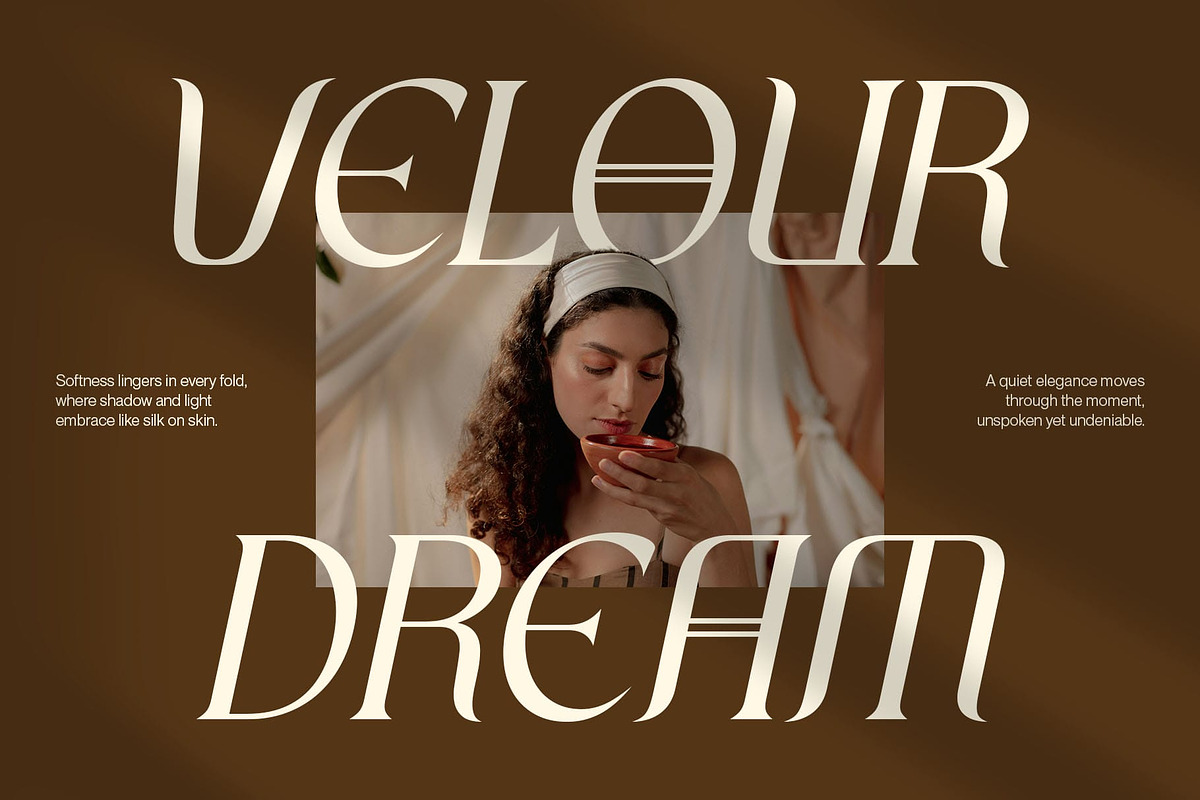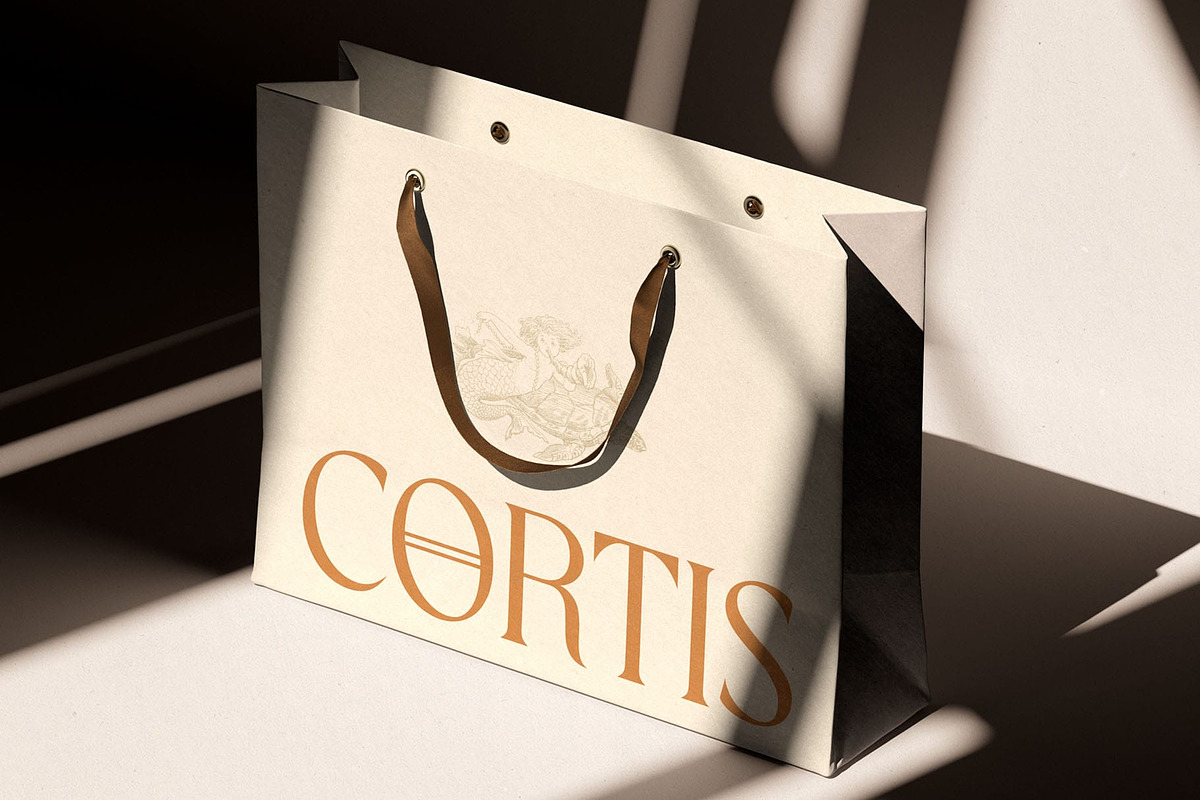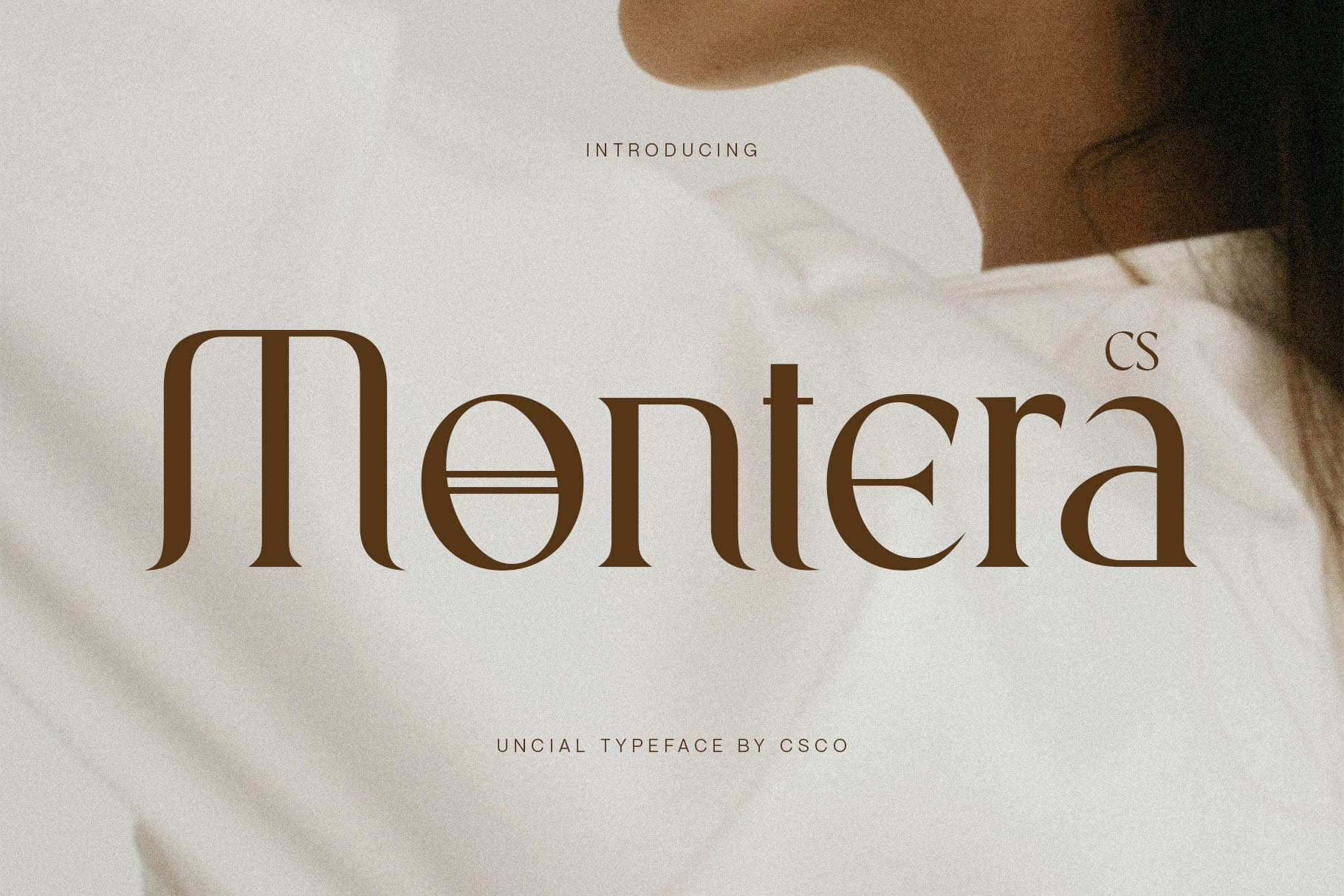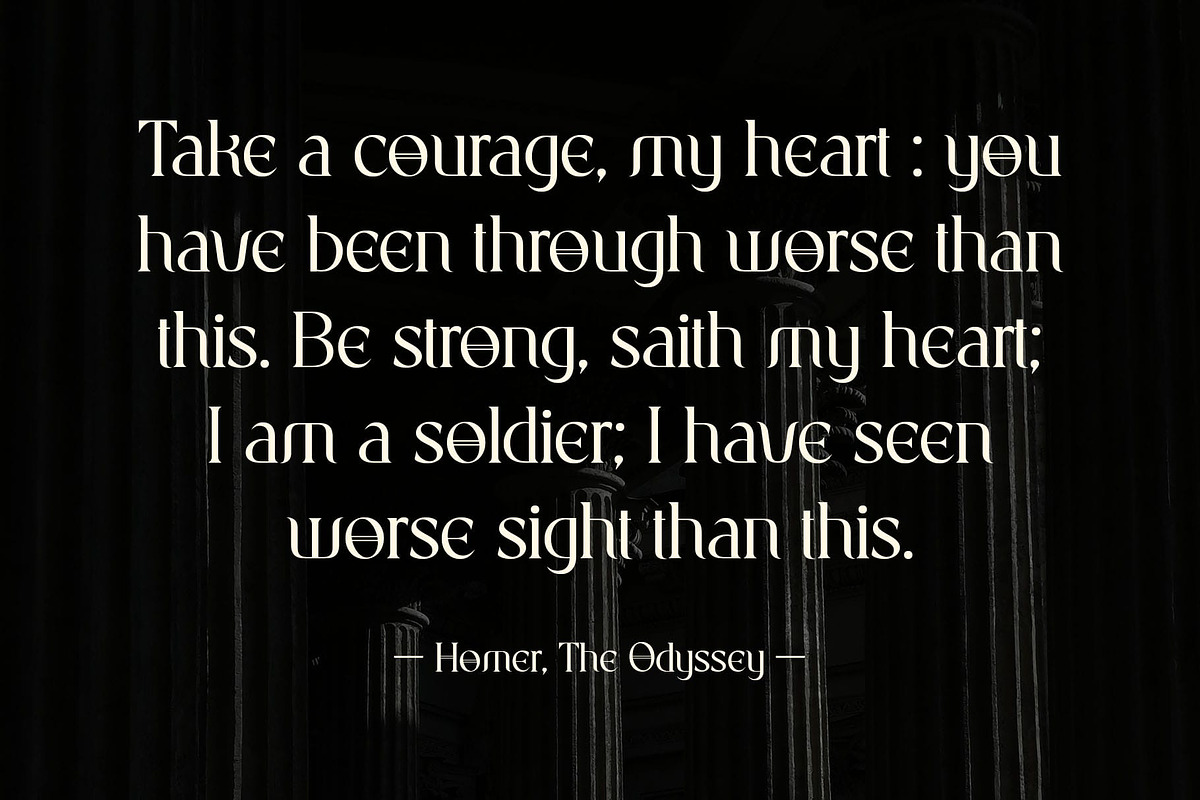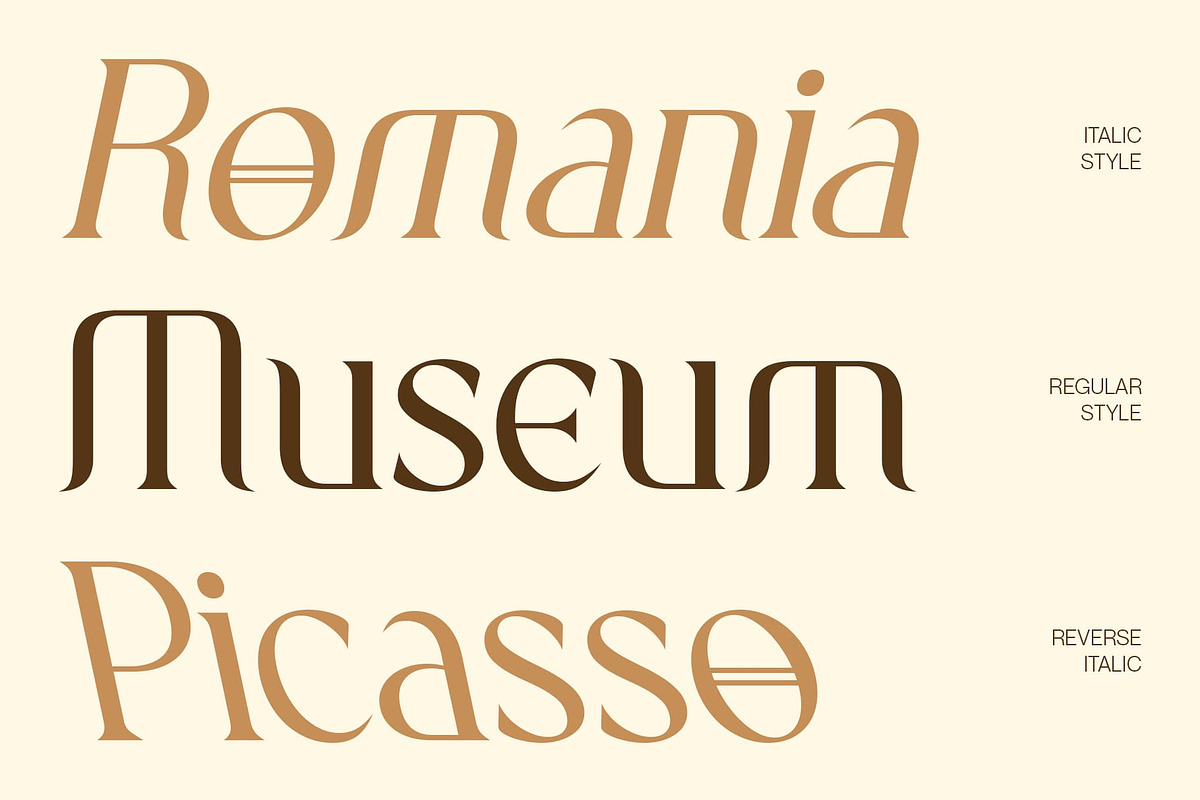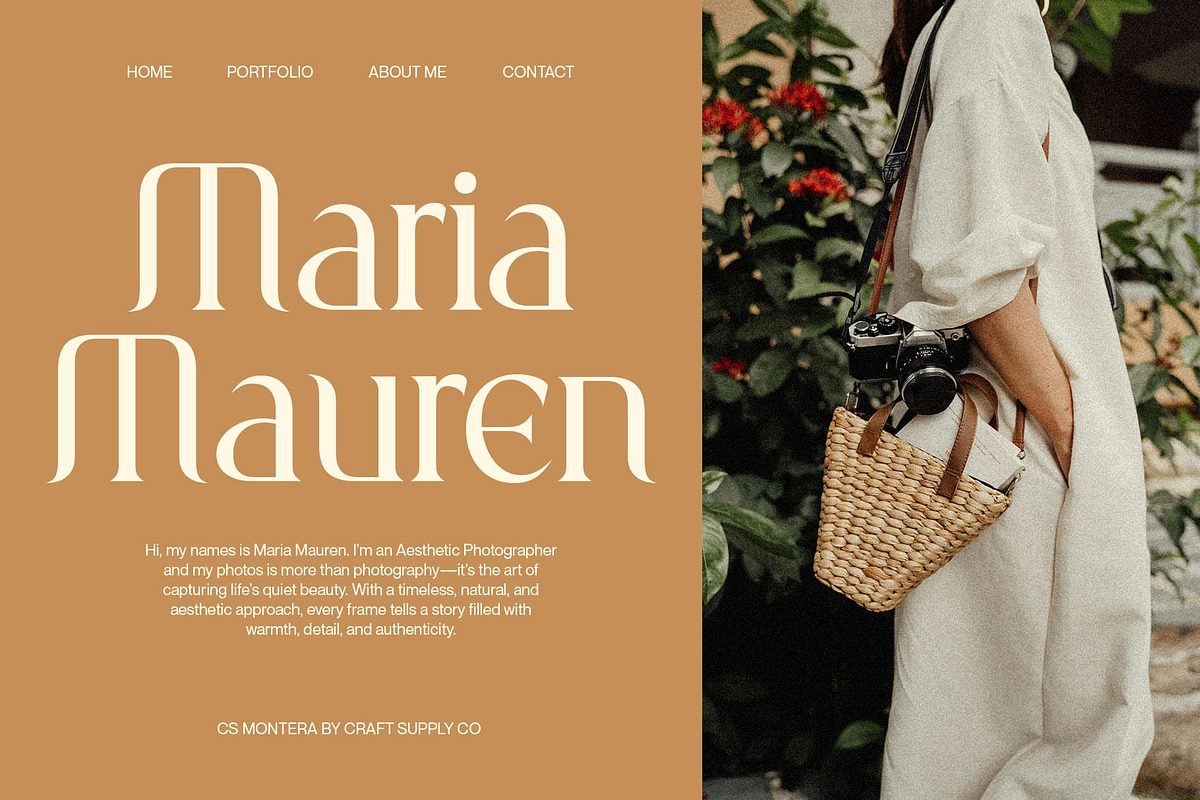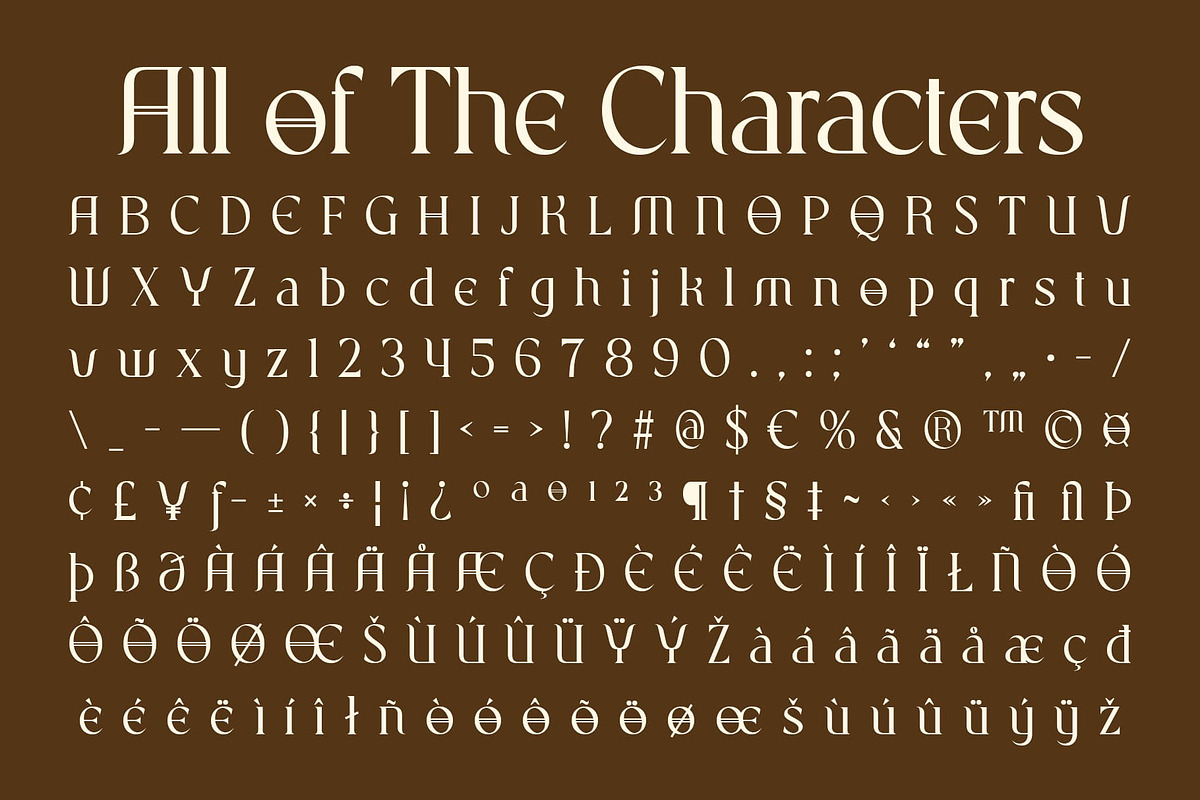
CS Montera – Greek Font
CS Montera – Greek Font: Timeless Elegance with Classical Inspiration
Modern Classic Serif Design CS Montera is a modern classic serif display font inspired by the artistry of ancient Greek letterforms. Its serif shapes echo the grandeur of stone-carved inscriptions—strong, graceful, and enduring—then refined with contemporary clarity for today’s design needs.
Blending History with Modern Refinement This typeface skillfully merges majestic historical influence with clean modern styling, creating a balance that feels both timeless and sophisticated. The result is a font that carries the weight of history while offering the readability and versatility demanded in modern design.
Versatile and Sophisticated Perfect for luxury branding, editorial layouts, book covers, and artistic posters, CS Montera conveys a sense of authority, culture, and refinement. Its classical foundation makes it ideal for projects that want to emphasize tradition and legacy, while its modern polish ensures it fits seamlessly into professional and creative applications.
Classical Grandeur Meets Modern Simplicity The overall mood of CS Montera combines elegance, sturdiness, and cultural depth, making it a perfect choice for designers seeking typography that bridges the ancient and the contemporary, resulting in a design language that feels sophisticated, powerful, and enduring.
- CS Montera Regular
- CS Montera Italic
- CS Montera Reverse Italic